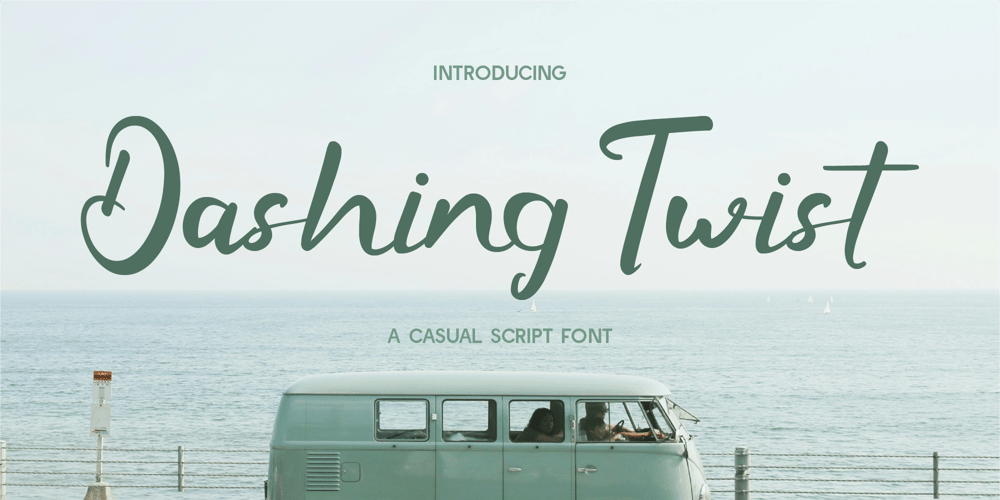
CF Dashing Twist Font Family was designed by Gilang Mei Nugraha, Frederik Aristaputra and published by Creatifont Studio. CF Dashing Twist contains 2 styles and family package options. Dashing Twist is a casual script font that perfectly embodies a relaxed yet stylish vibe. Its smooth and lively strokes bring energy and personality to your designs, making it an excellent choice for travel blogs, lifestyle branding, greeting cards, or social media content. With its approachable charm and carefree spirit, Dashing Twist adds a touch of whimsy and individuality to your creative projects. Whether you’re aiming for a laid-back or cheerful aesthetic, this font delivers effortless versatility and warmth.A SUMMARY OF WHAT’S INCLUDED:- Standard Character A-Z, a-z, 0-9, Punctuation & symbols- Regular and Italic- Works on PC & Mac- Simple installation- Accessible in Adobe Creative Suite (Ai, Ps, Id, etc.) even work on Microsoft Word.- PUA Encoded Characters – Fully accessible without additional design software.🌟If you come across any issues or notice anything we might have overlooked while using this product, please feel free to reach out to us. We greatly value your feedback as it helps us enhance and refine our products. Thank you!